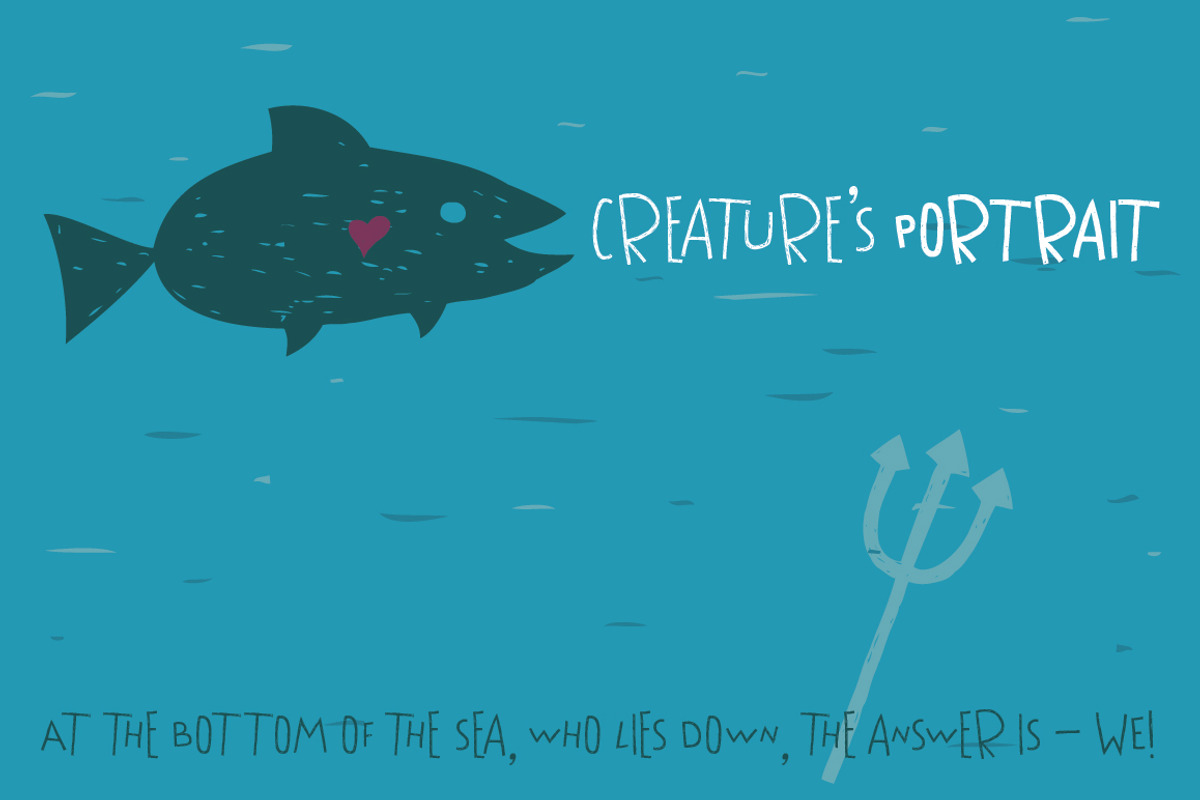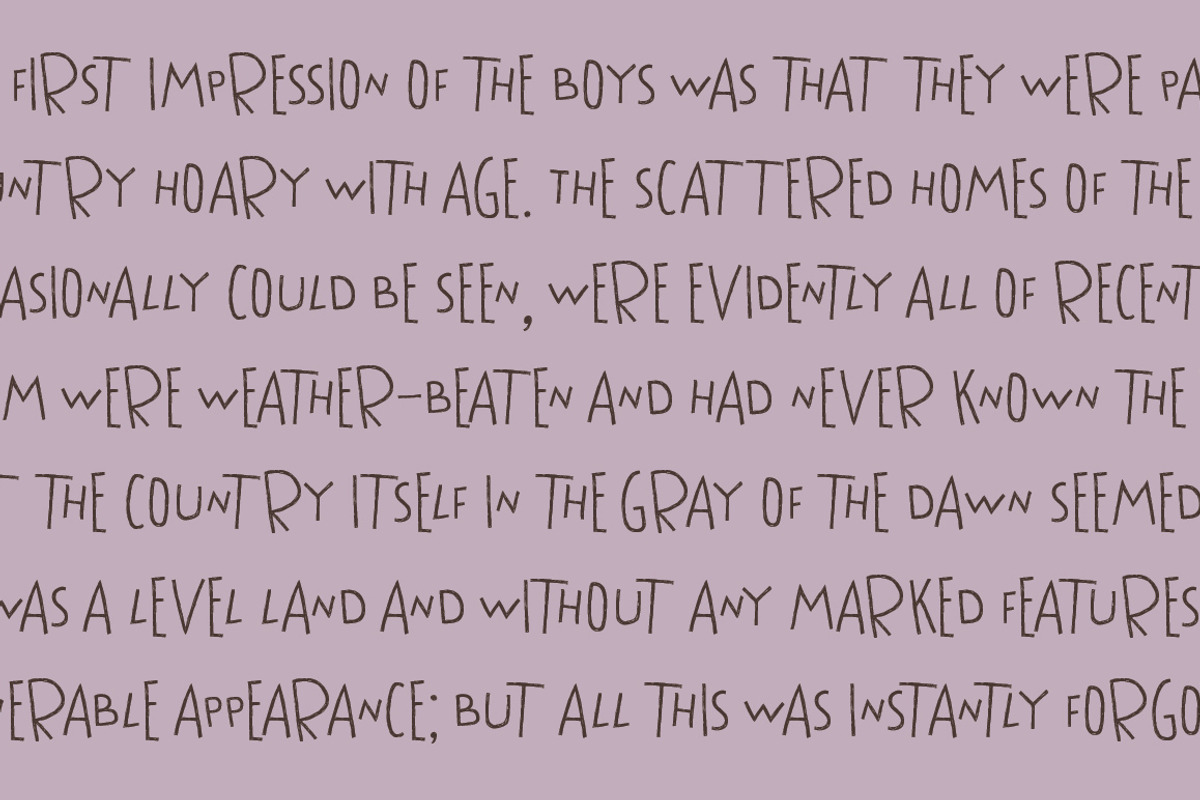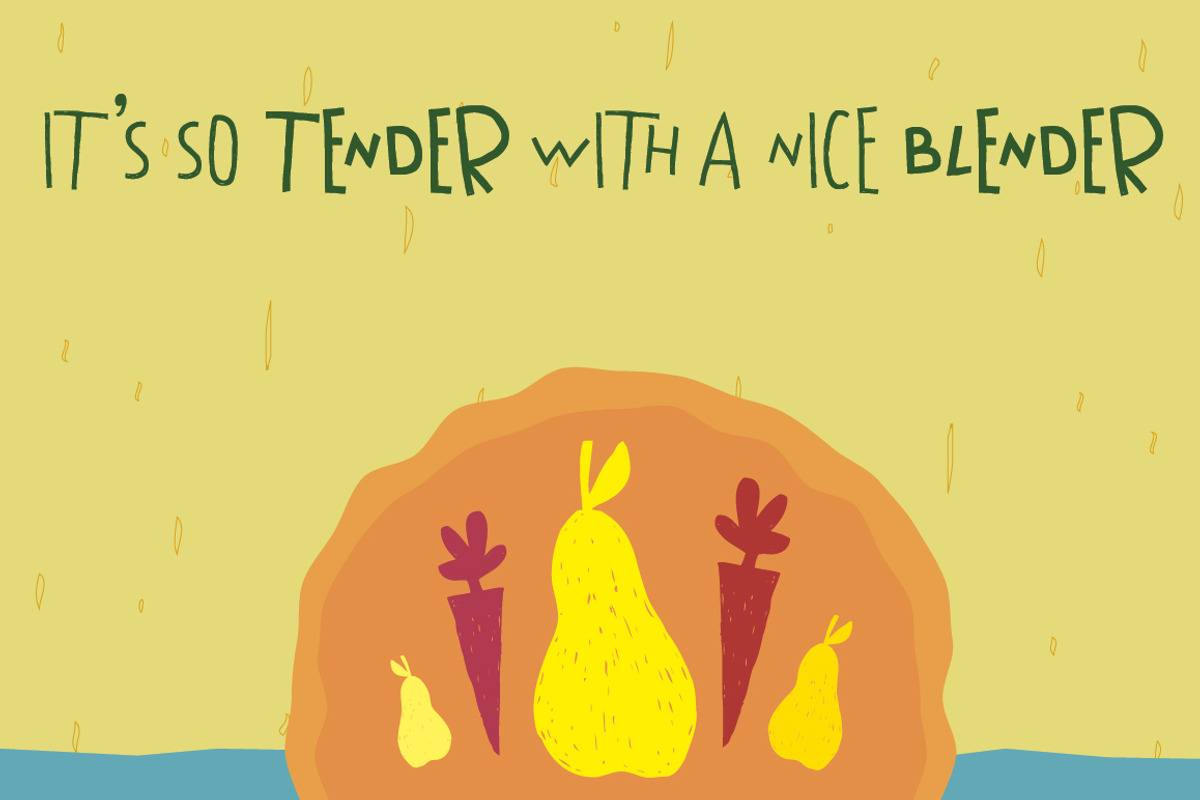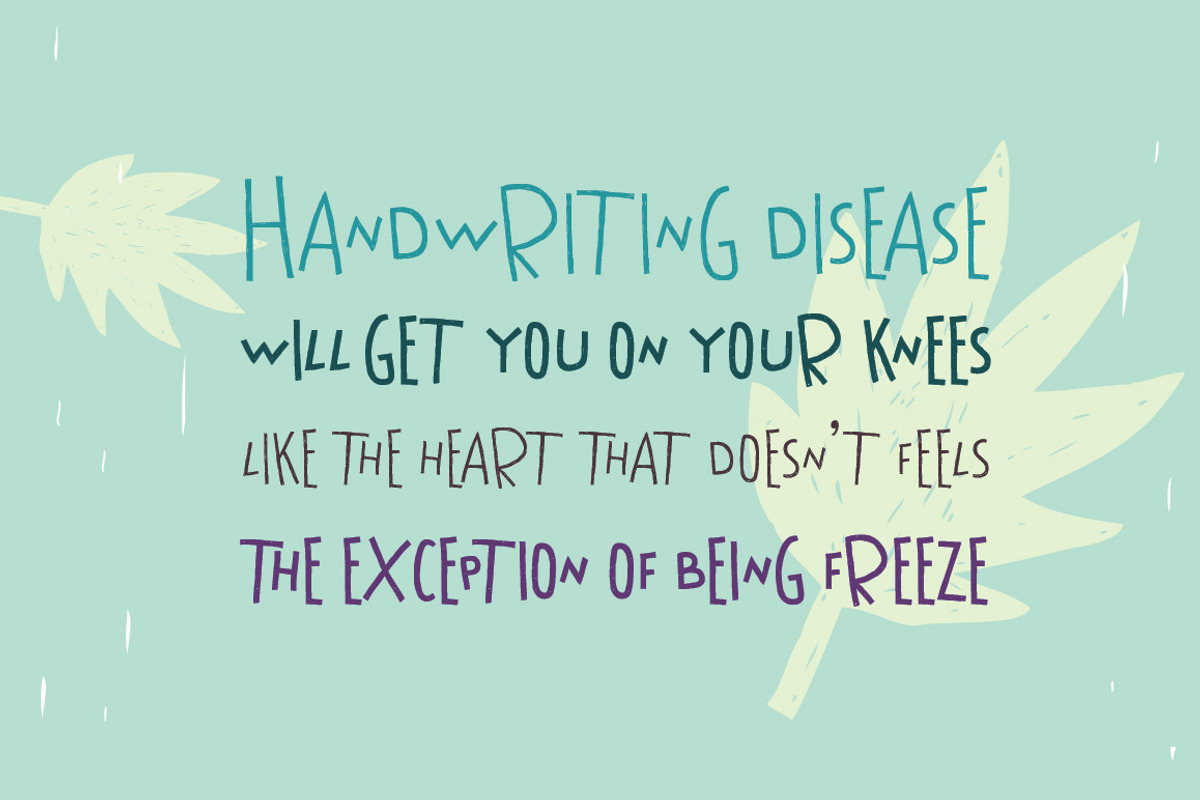
Nervatica Font Family
Nervatica Font Family by Tour de Force FF is a font selected for branding, posters, packaging, typography.
Why Nervatica Font Family is worth a look
Nervatica Font Family by Tour de Force FF fits naturally into Branding, posters, packaging, typography.